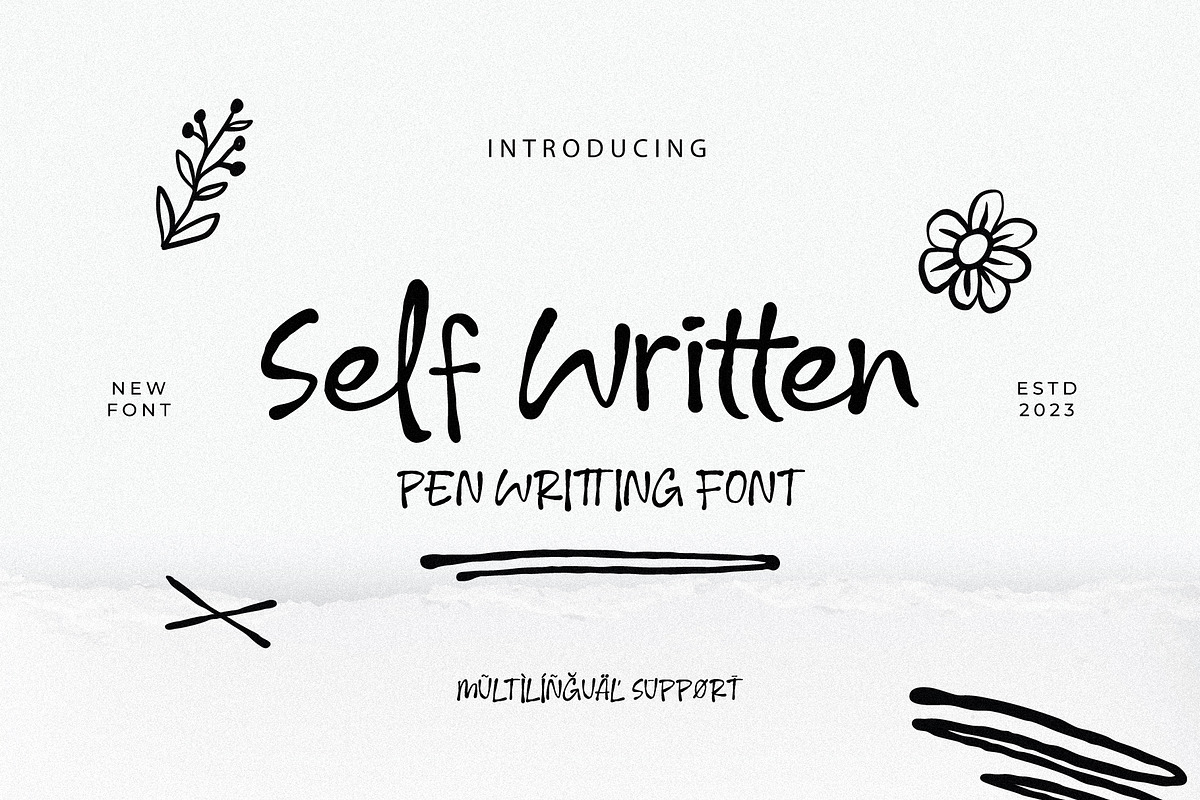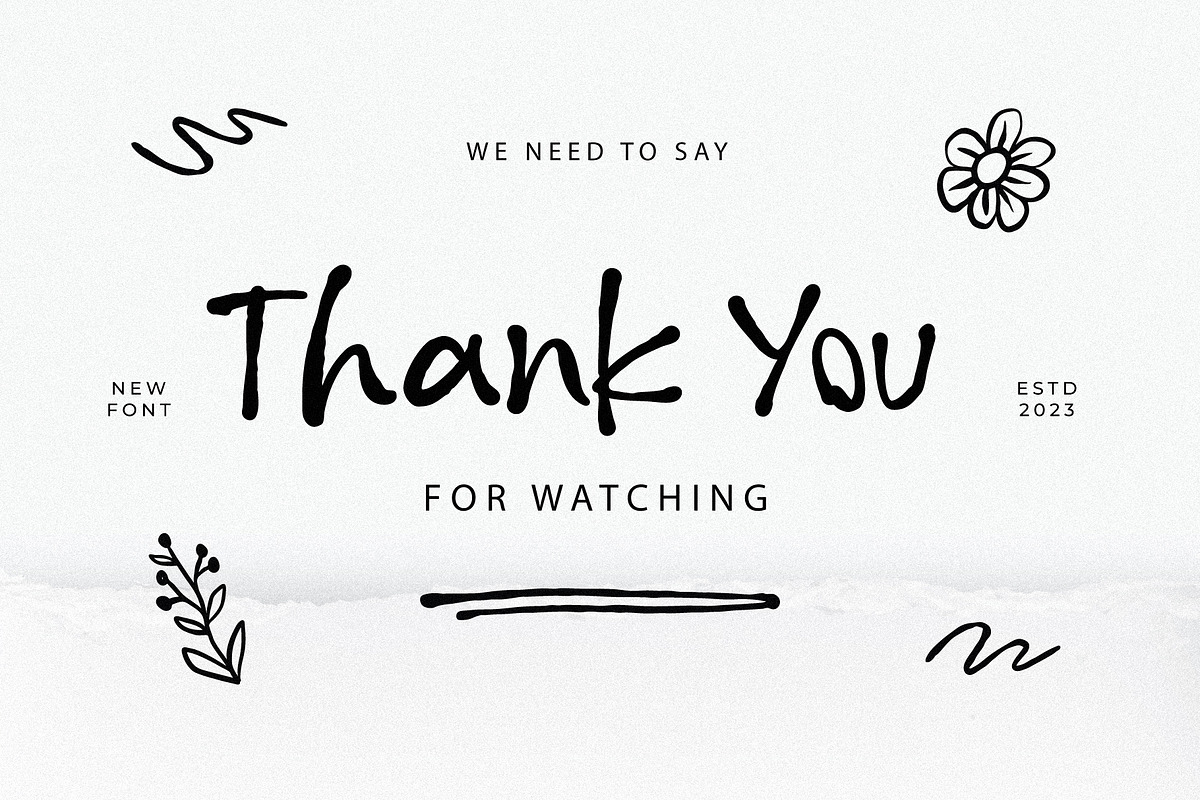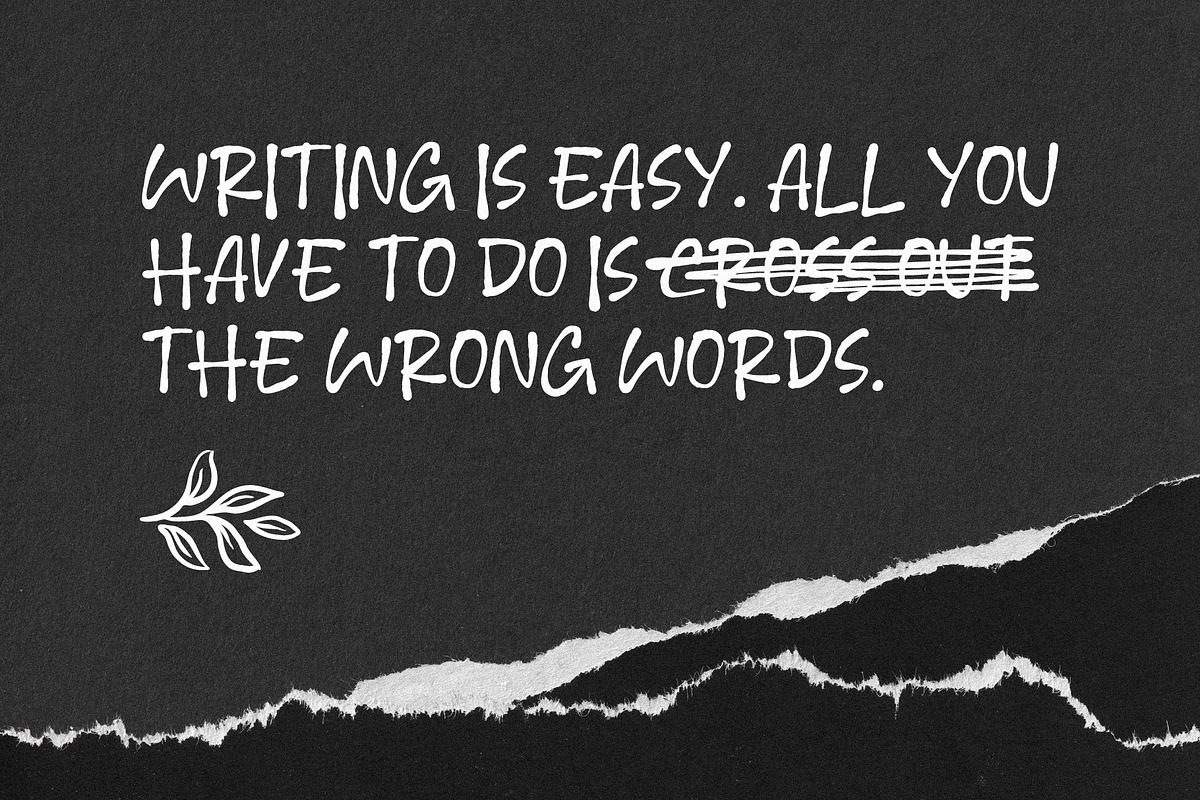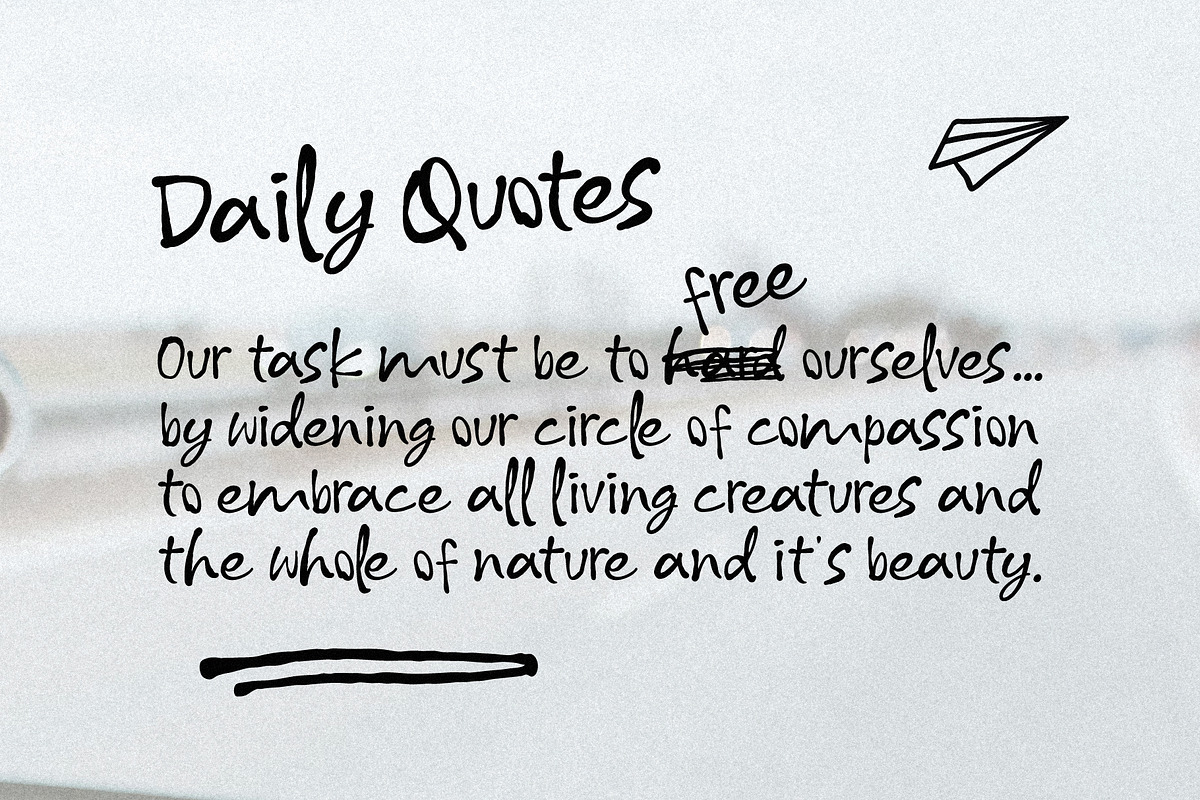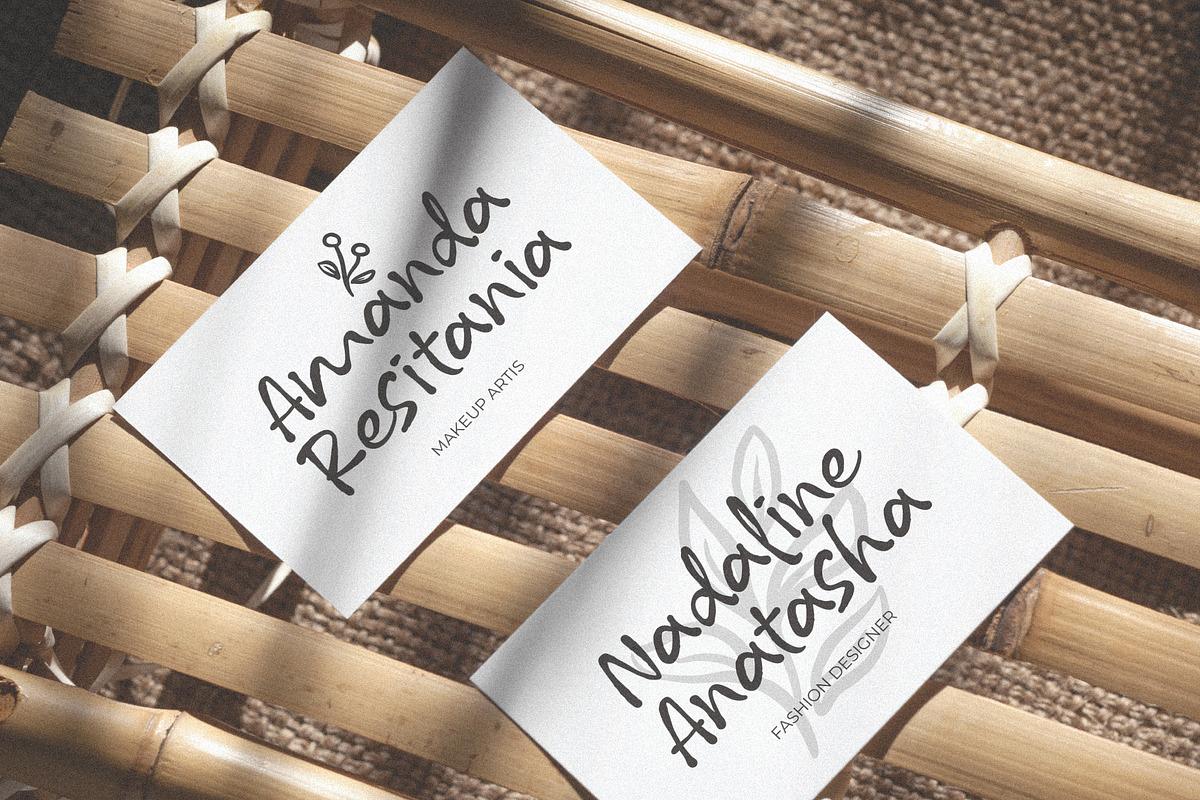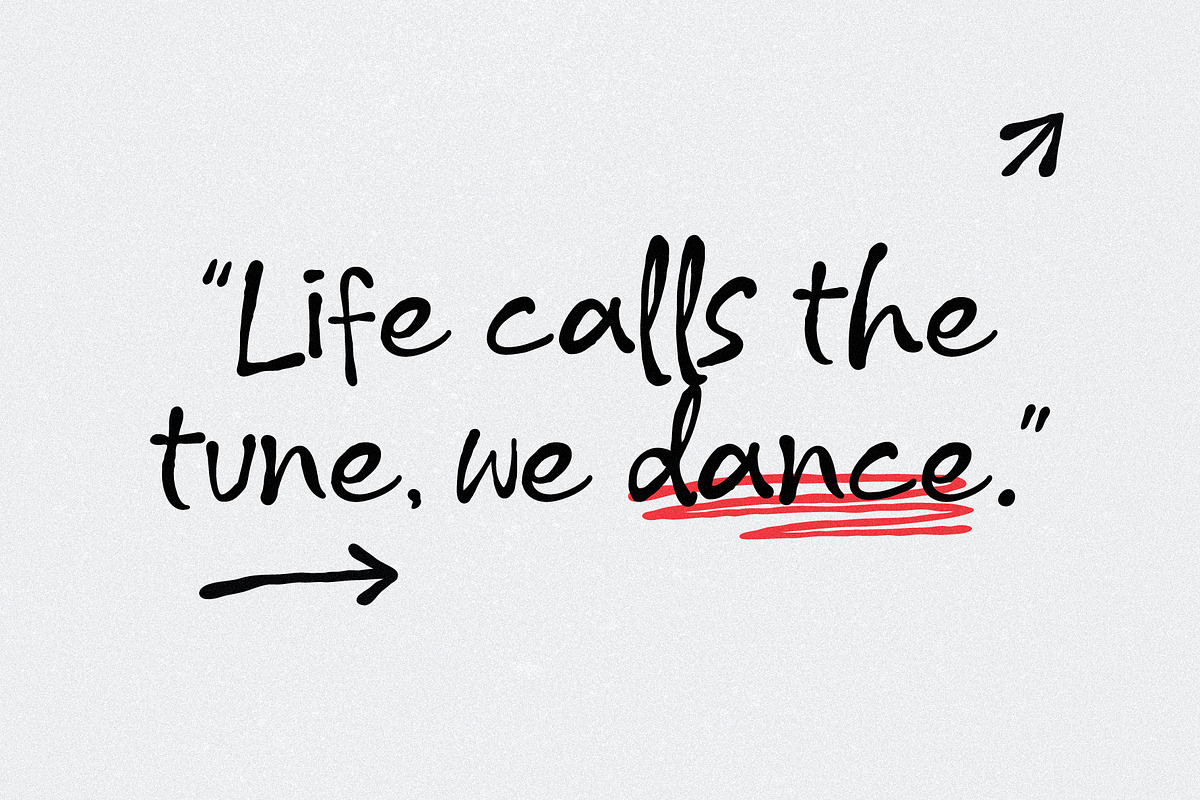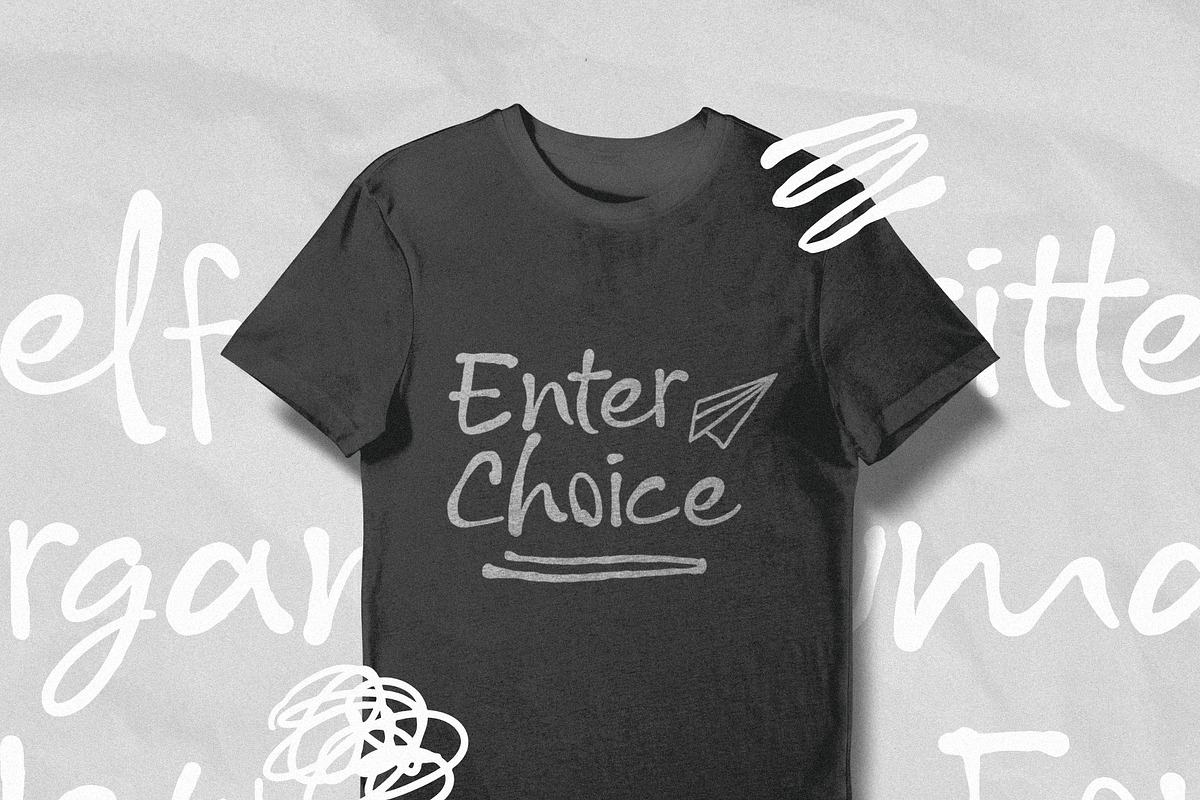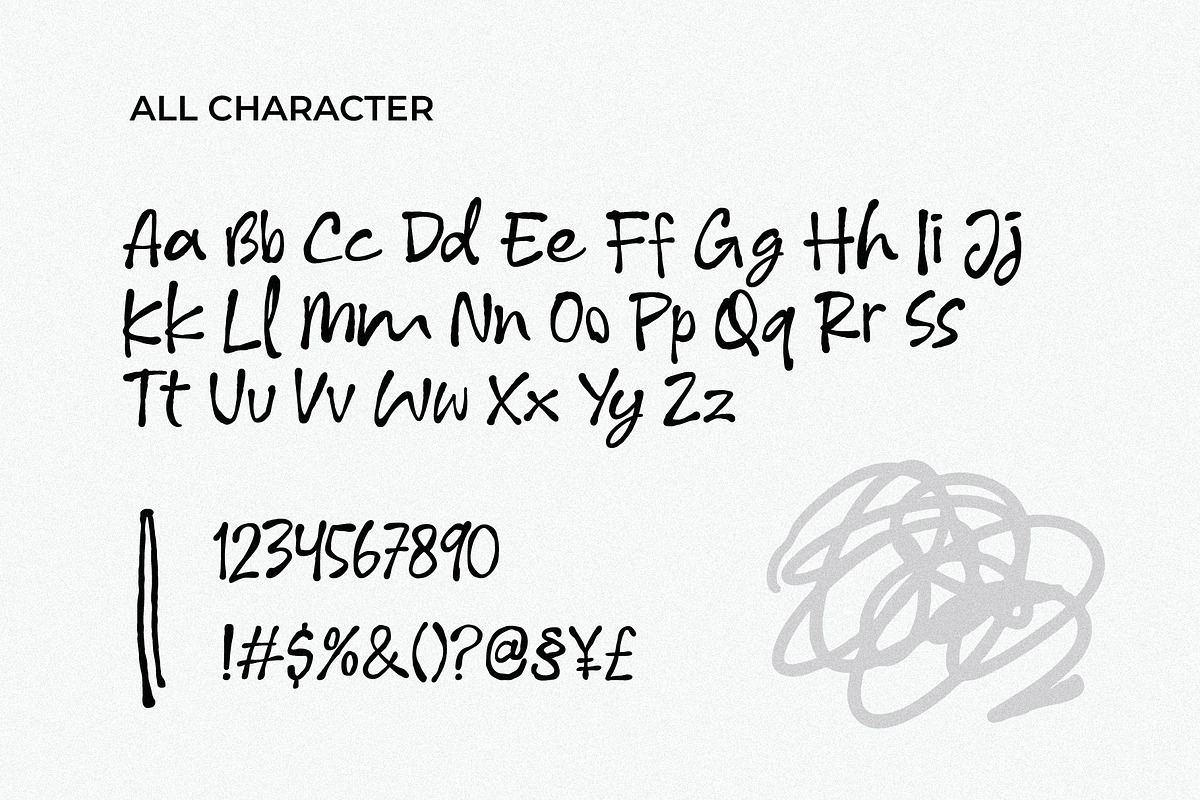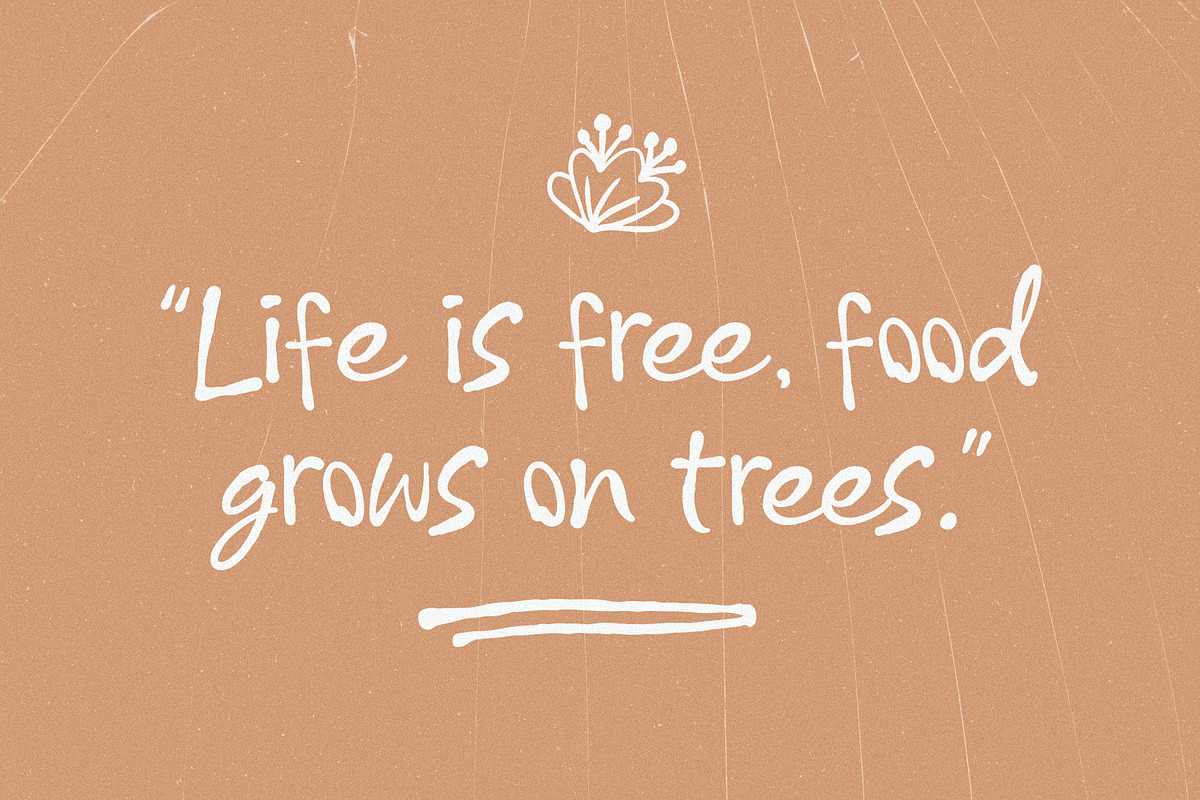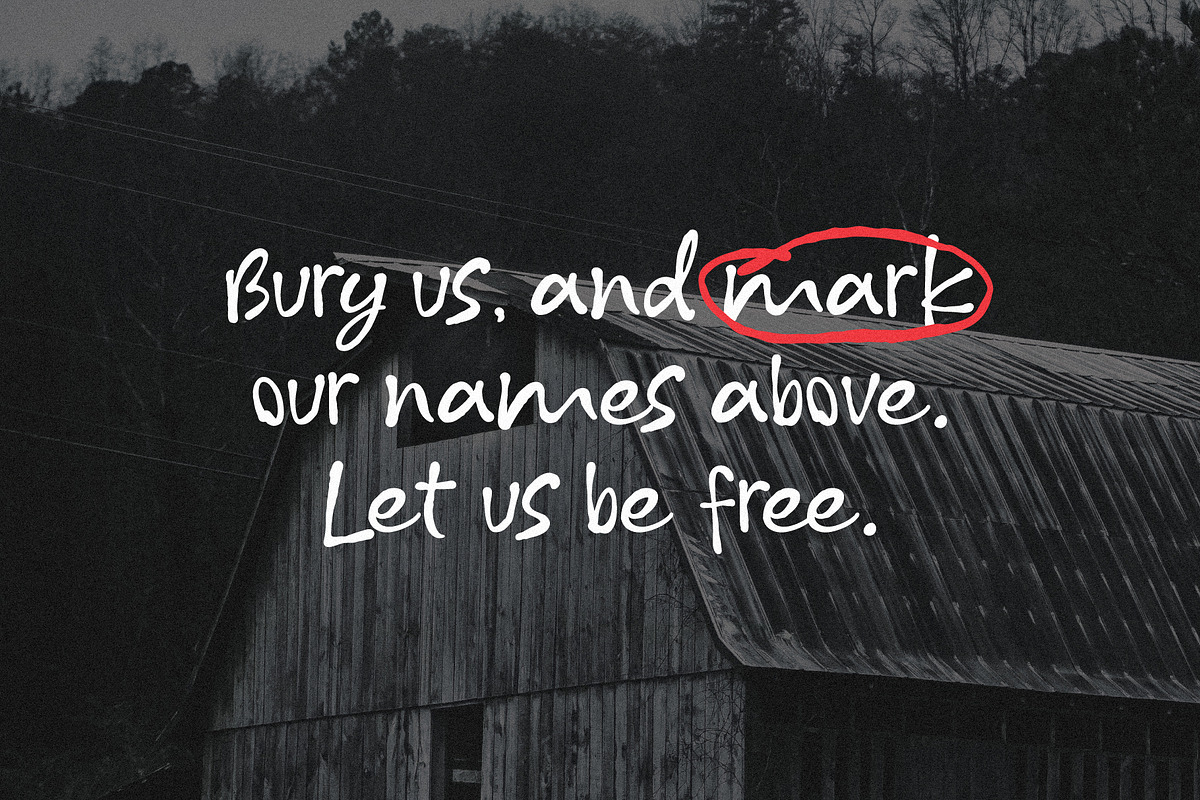
Self Written - Pen Writting
“Self Written” – Where Elegance Meets Impact! 🌟
Self Written is an enticing creation of organic handwriting that sparks the imagination. Every line is crafted with tender care, lending a personal touch and uniqueness to each character. With unexpected grace, this font establishes a warm and inviting atmosphere, inviting readers to feel the softness of every stroke.
- Uppercase: Elegance and firmness are evident in the bold and expressive capital letters.
- Lowercase: Natural and gentle handwriting style strikes a perfect balance between formality and familiarity.
- Multilingual: Supports various languages, ensuring global accessibility and cross-cultural connections.
- Ligature: The fusion of beauty and functionality, with carefully selected ligatures enhancing the smooth flow between letters.